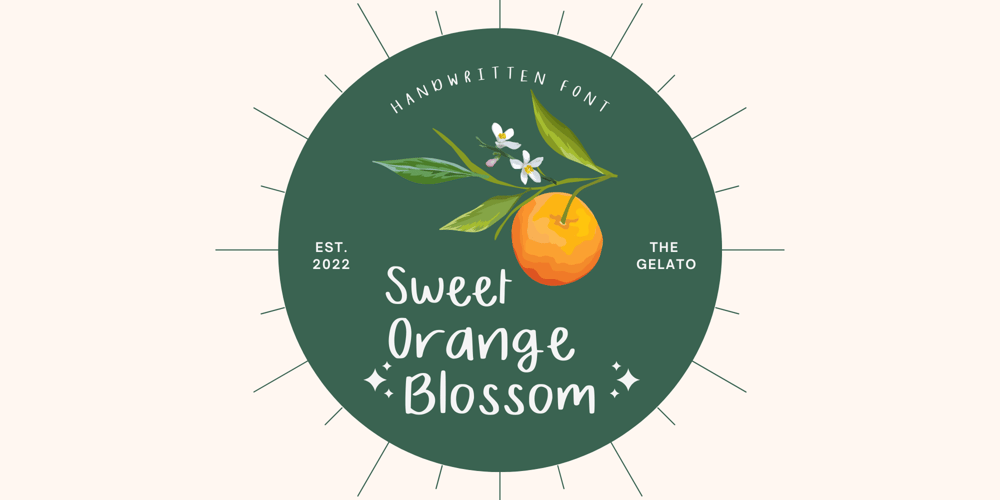
Sweet Orange Blossom
Sweet Orange Blossom font
Sweet Orange Blossom Font Family was designed by Thitawan Noenpoempisut and published by The Gelato. Sweet Orange Blossom contains 1 styles and family package options. The Sweet Orange Blossom font is a handwritten font that gives neat but realistic roller pen feelings when being displayed! It offers support for all the characters in all western European languages as well as standard punctuation glyphs. Perfectly suitable for numerous use such as product labels, quotations, banners, logos, product packaging, titles, headers, menu lists, and even for digital note taking! It comes in OTF format.Feel free to purchase and try!